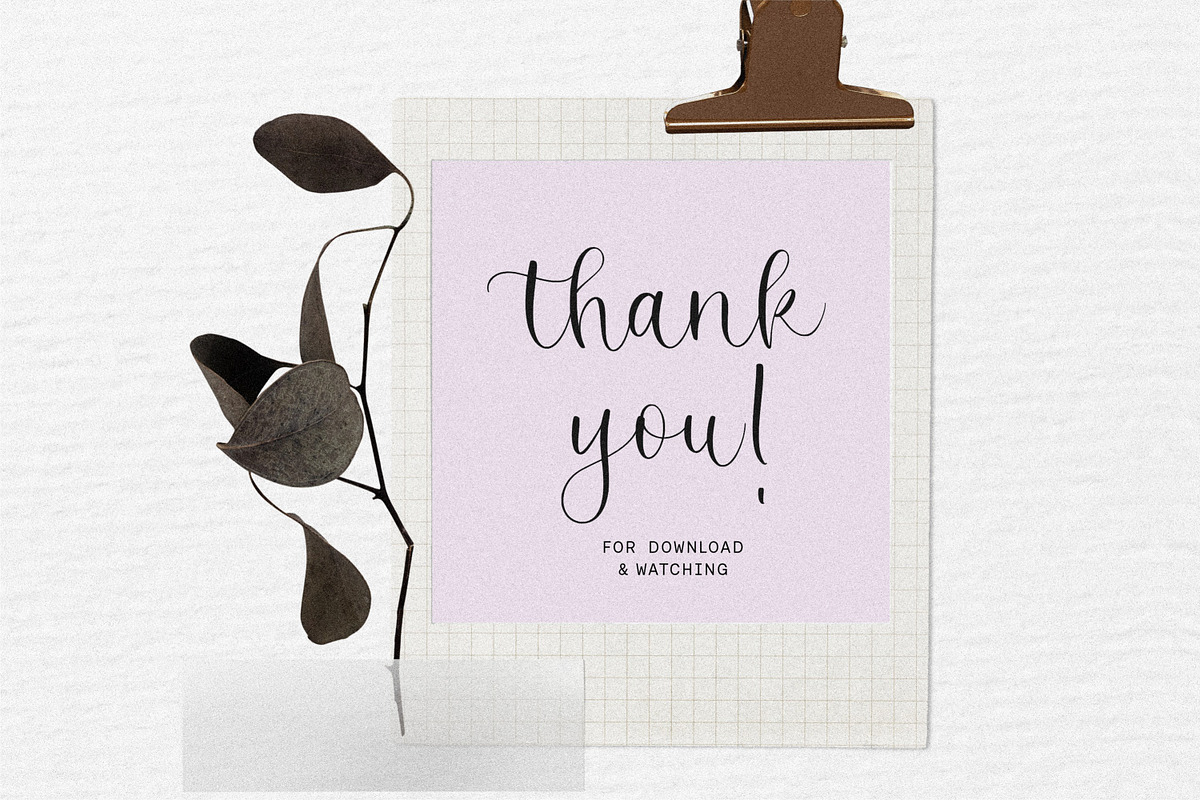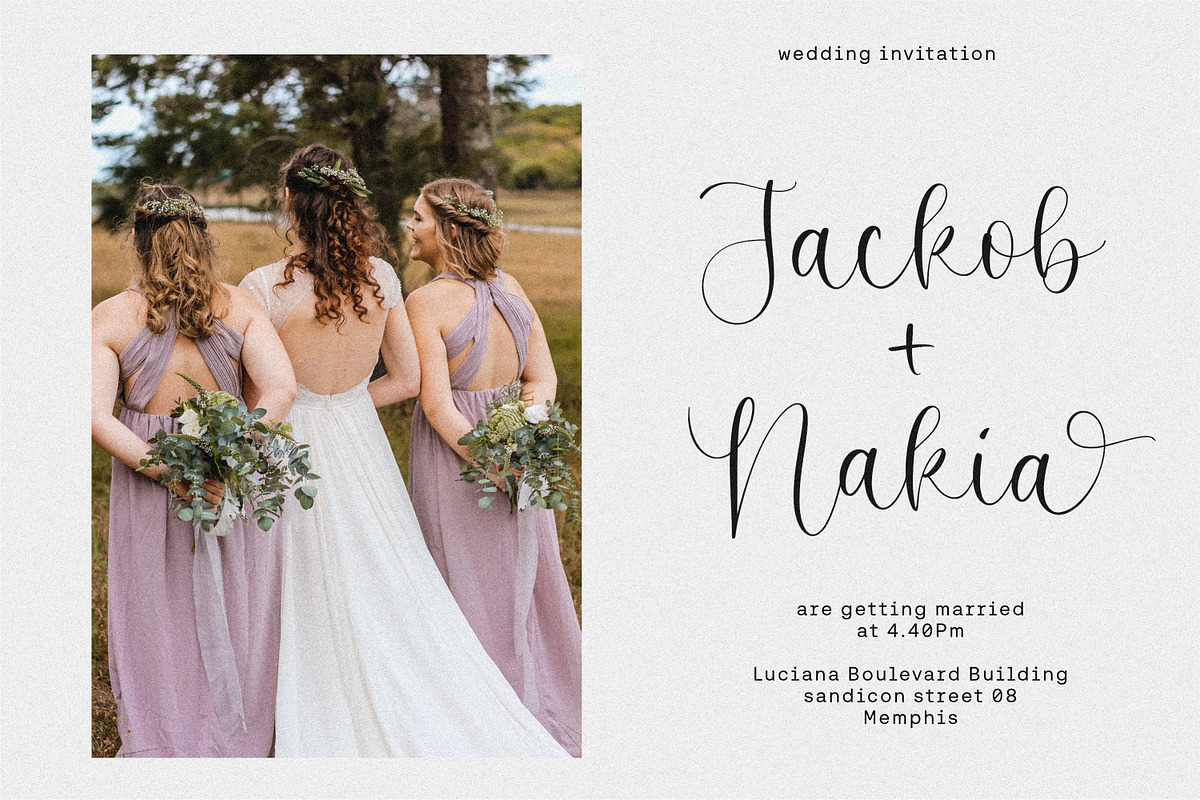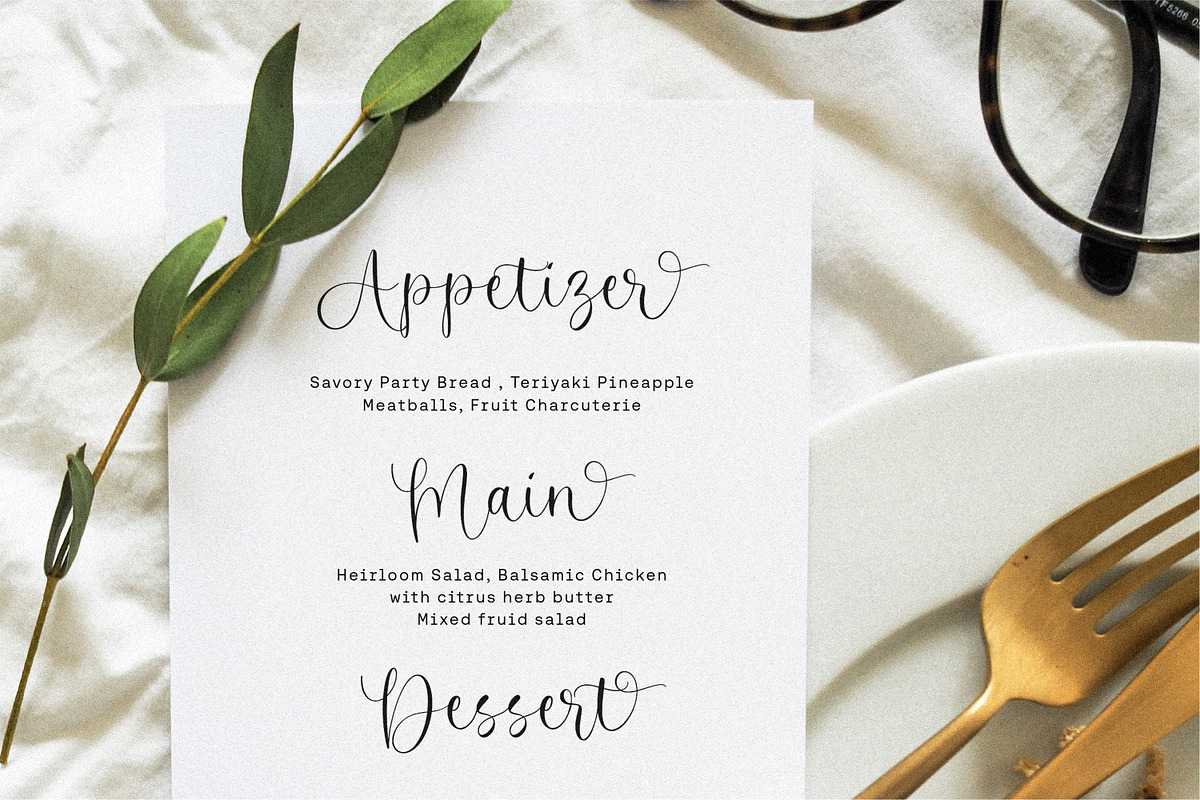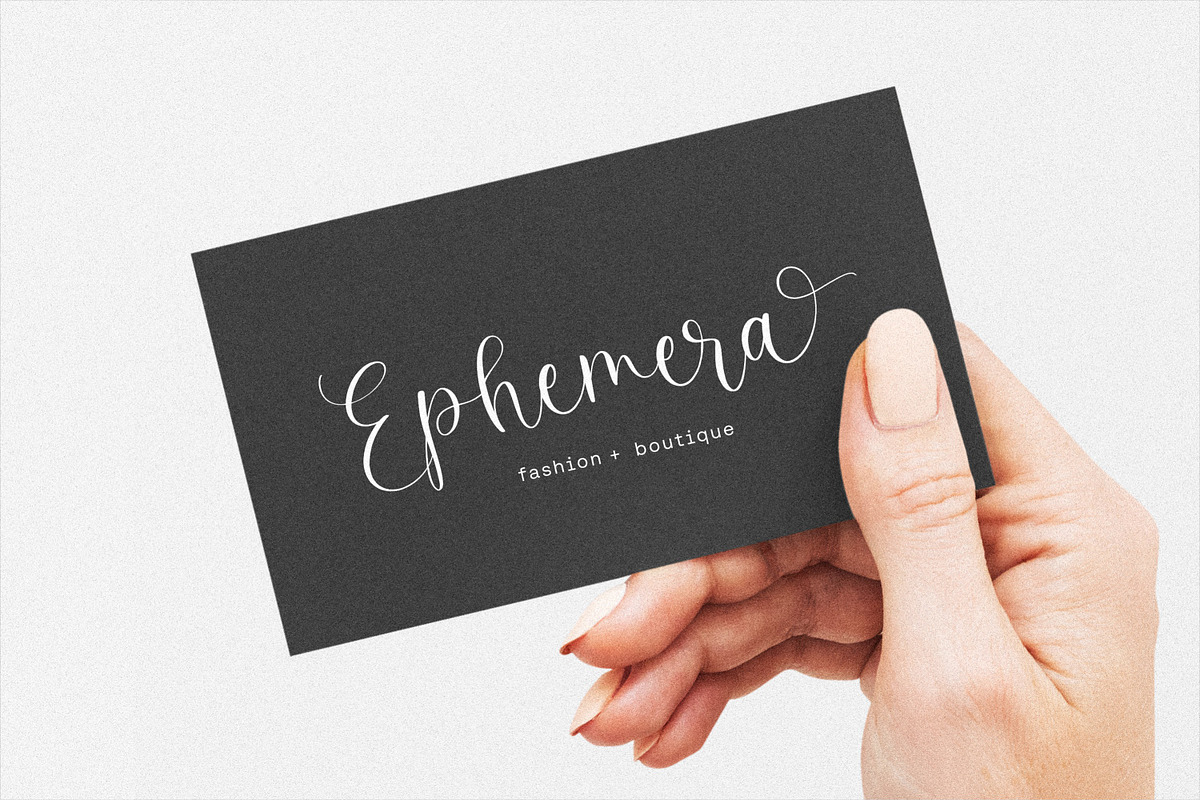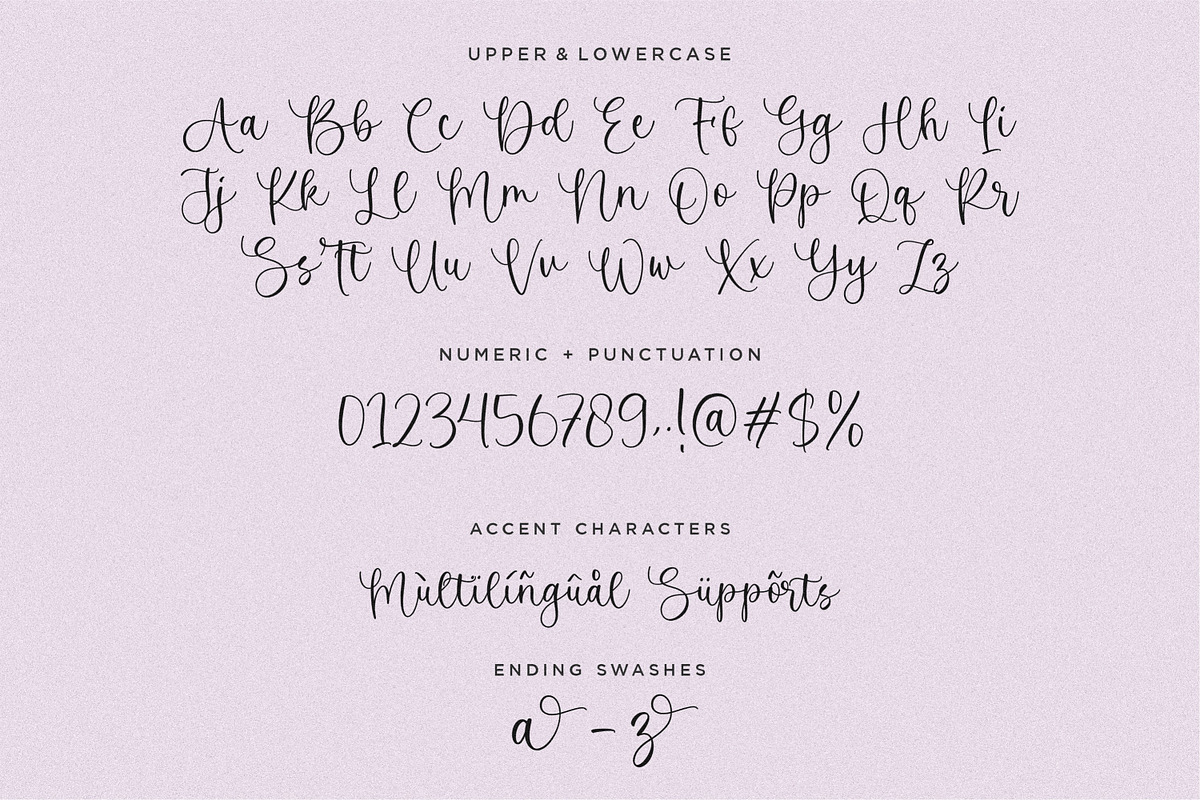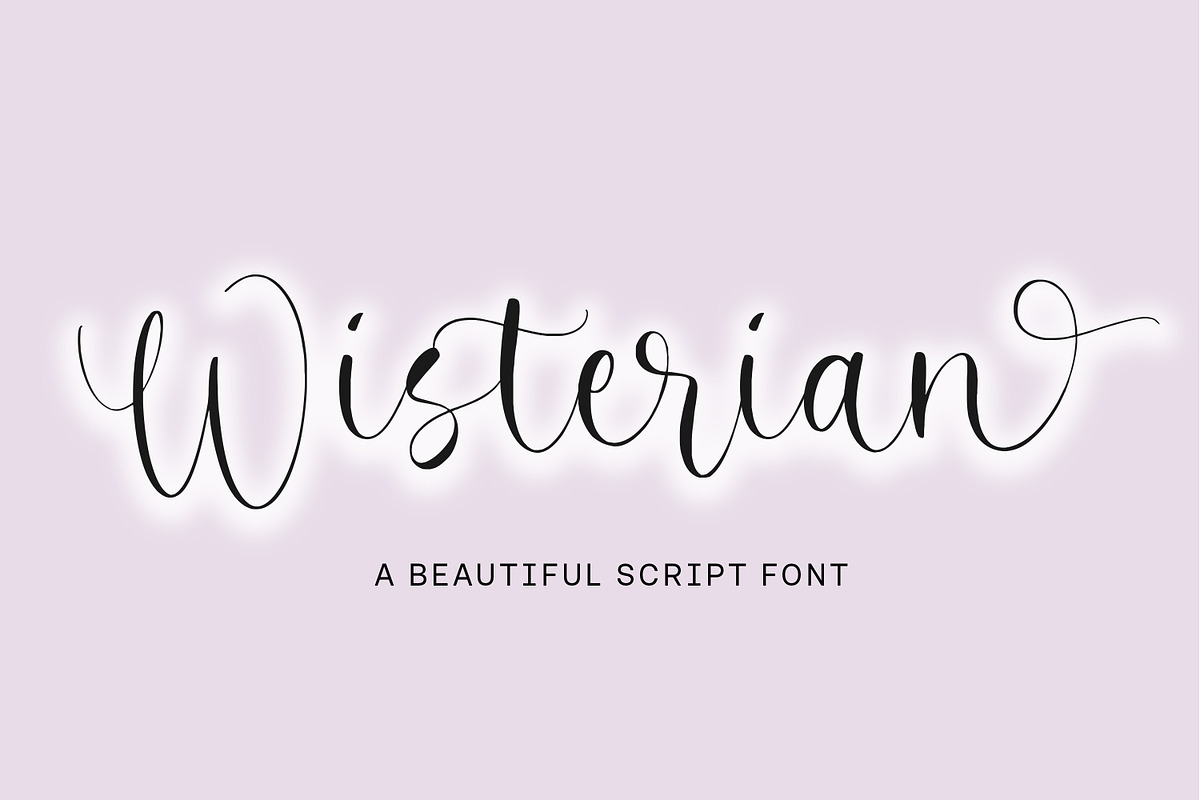
Wisterian Beautiful Script
Wisterian is a Beautiful Script Font.
Behold the exquisite beauty of Wisterian, a stunning script font that will add a touch of elegance and charm to your design projects. With its graceful curves and alluring tail, Wisterian is perfect for capturing attention and creating a sense of enchantment.
- also multilingual support